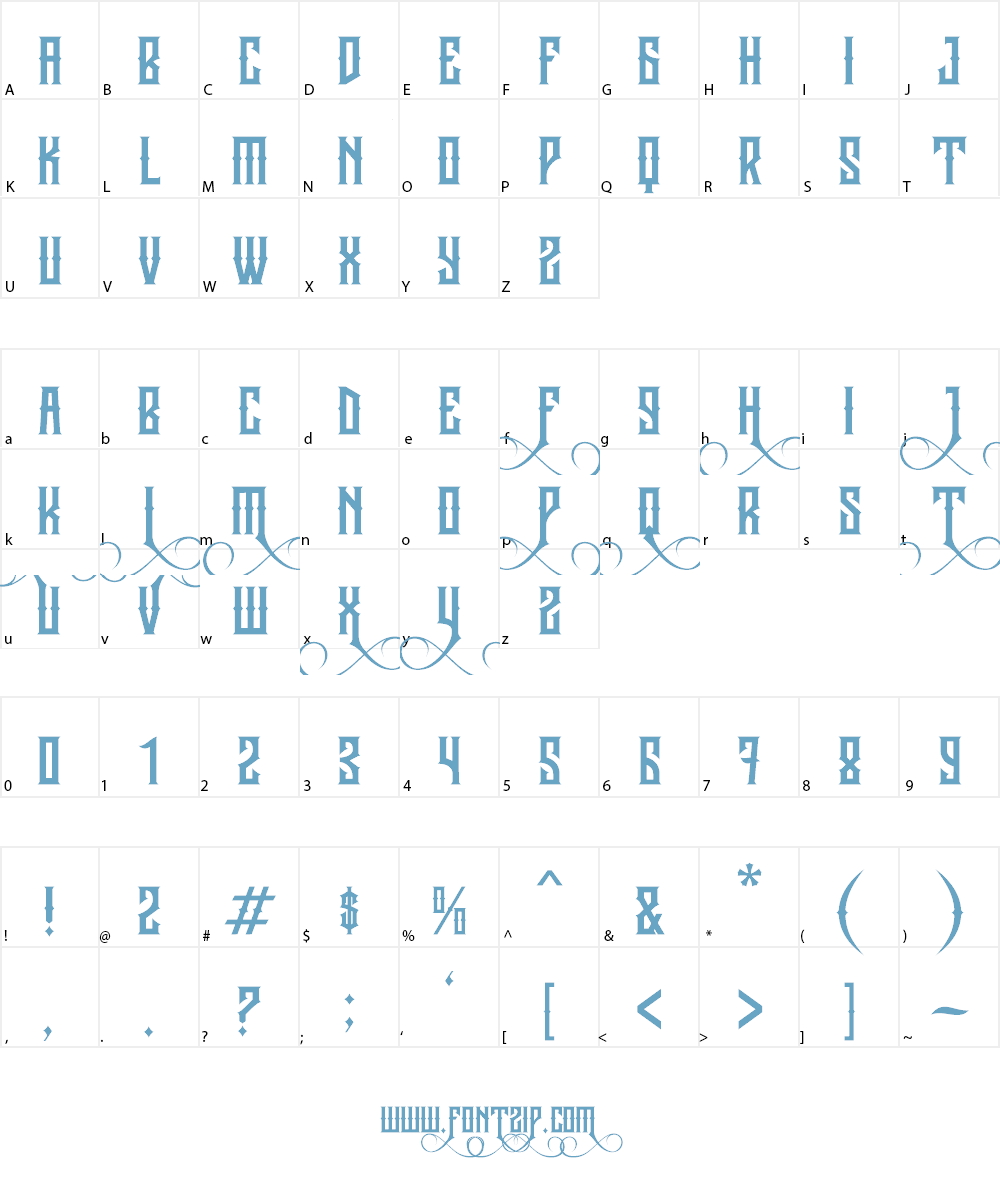
Jibriel SmallCaps is a "small caps" version from the complete JIBRIEL Typeface : http://www.revolge.com/product/jibriel/
It's an hybrid font between a tattoo and blackletter typeface.
Very good for creating logotype, headline, t-shirt design,band logo or indie music flyer or poster.